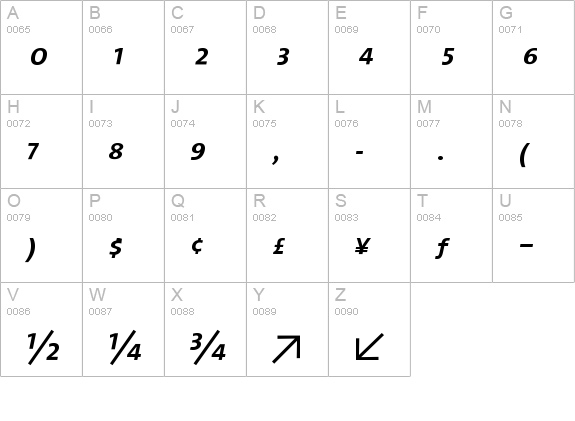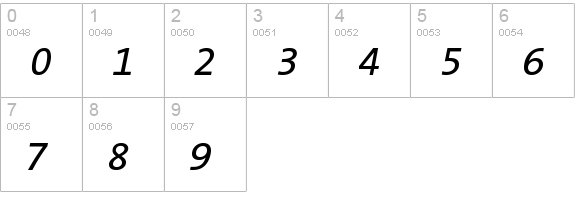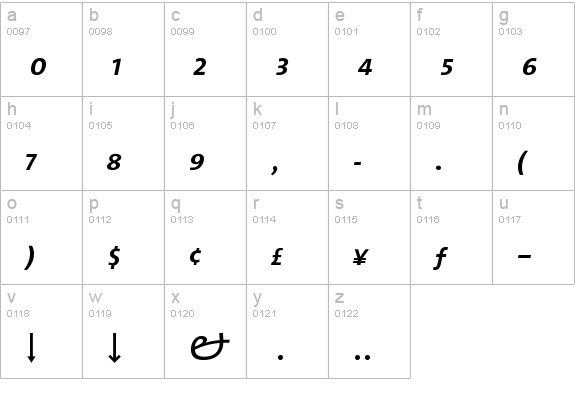
TheMix- Expert Italic Font Details
TheMix- Expert Italic is a distinctive, italic variant in the TheMix typeface family \xE2\x80\x94 well suited to design and typography projects.
TheMix- Expert Italic font is a stunning and versatile typeface that exudes elegance and sophistication. Its delicate and slanted letterforms add a touch of grace and sophistication to any design project. Whether you're creating a logo, designing a website, or crafting a beautiful invitation, this font is sure to make a lasting impression. With its sleek and stylish design, TheMix- Expert Italic font is perfect for both professional and personal use. It effortlessly complements any text, allowing it to stand out and captivate the reader's attention. Its unique italicized style adds a sense of fluidity and movement, making it ideal for conveying a sense of elegance and class. One of the best aspects of TheMix- Expert Italic font is that it is free. That's right, you can download this incredible font without spending a single penny. FontsMarket.com offers this font for free, allowing you to access and use it in your projects without any restrictions. This means that you can explore your creativity and bring your ideas to life without worrying about any additional costs. Whether you're a professional designer or a casual enthusiast, TheMix- Expert Italic font is a must-have in your font collection. Its versatility, elegance, and effortless beauty make it a go-to choice for a wide range of design projects. Download it for free at FontsMarket.com and unlock a world of creative possibilities.